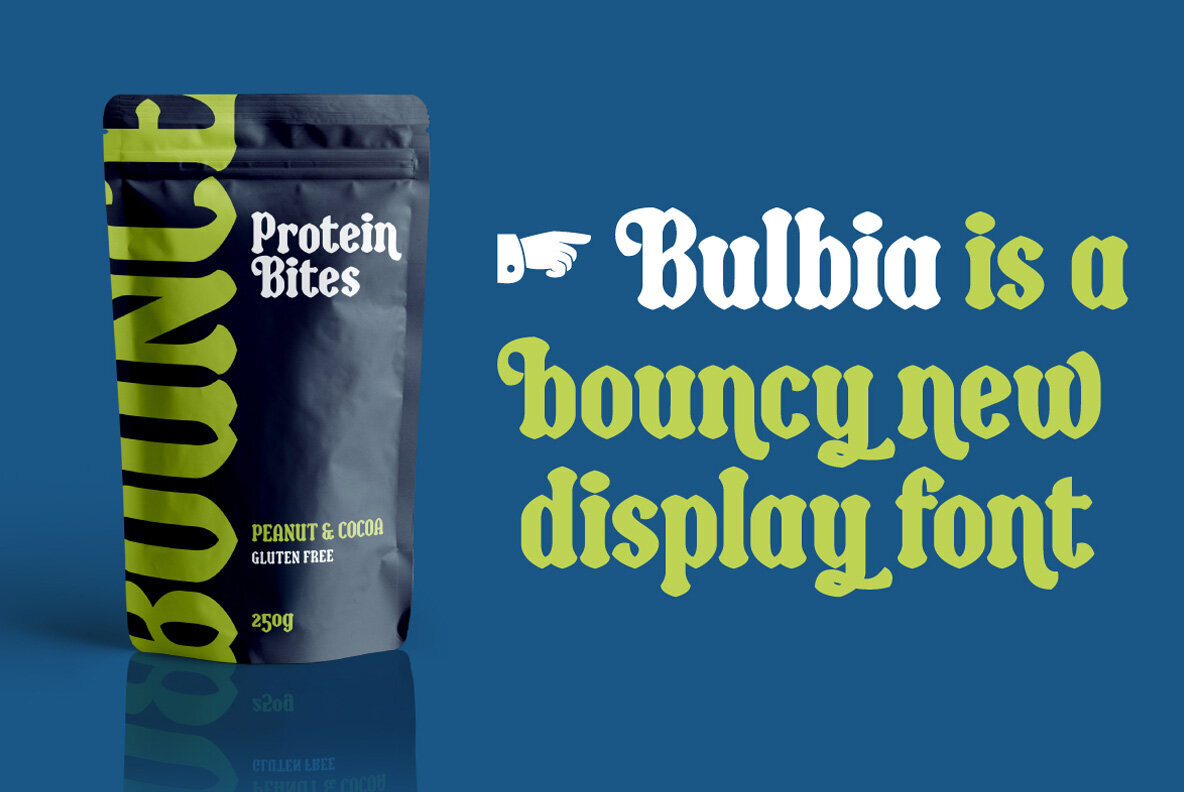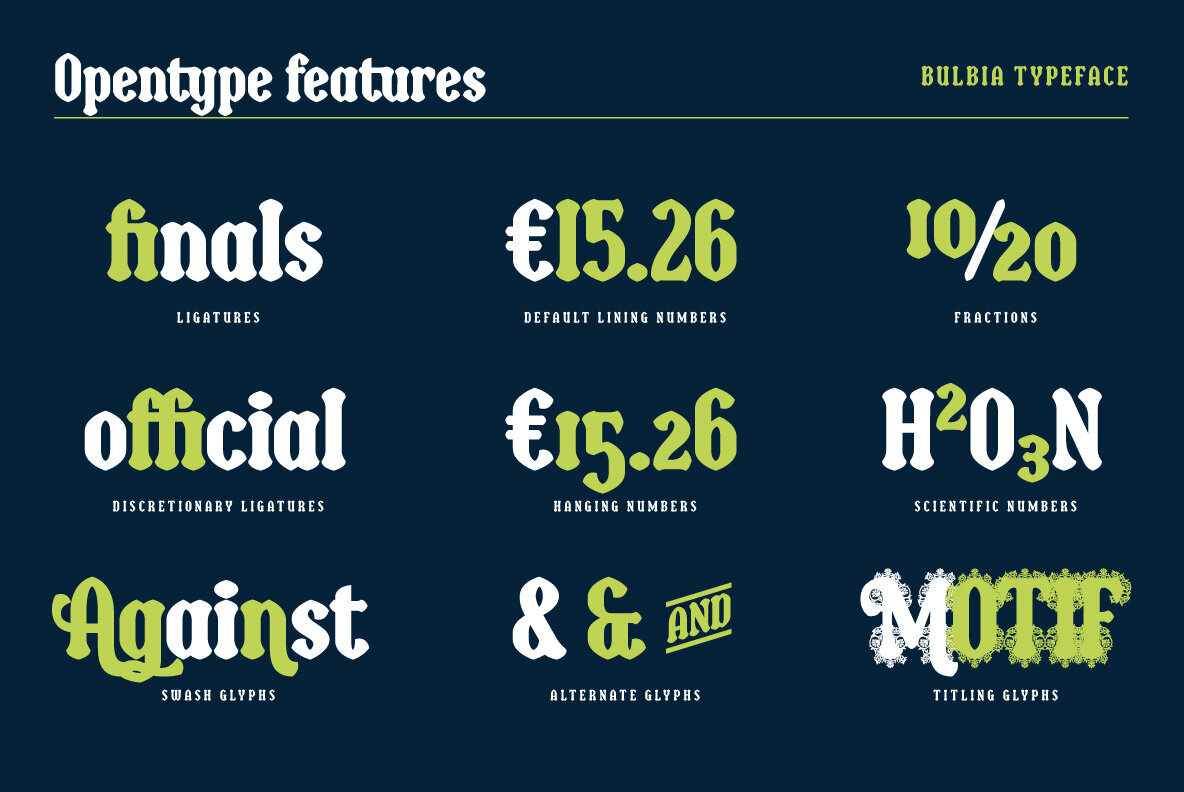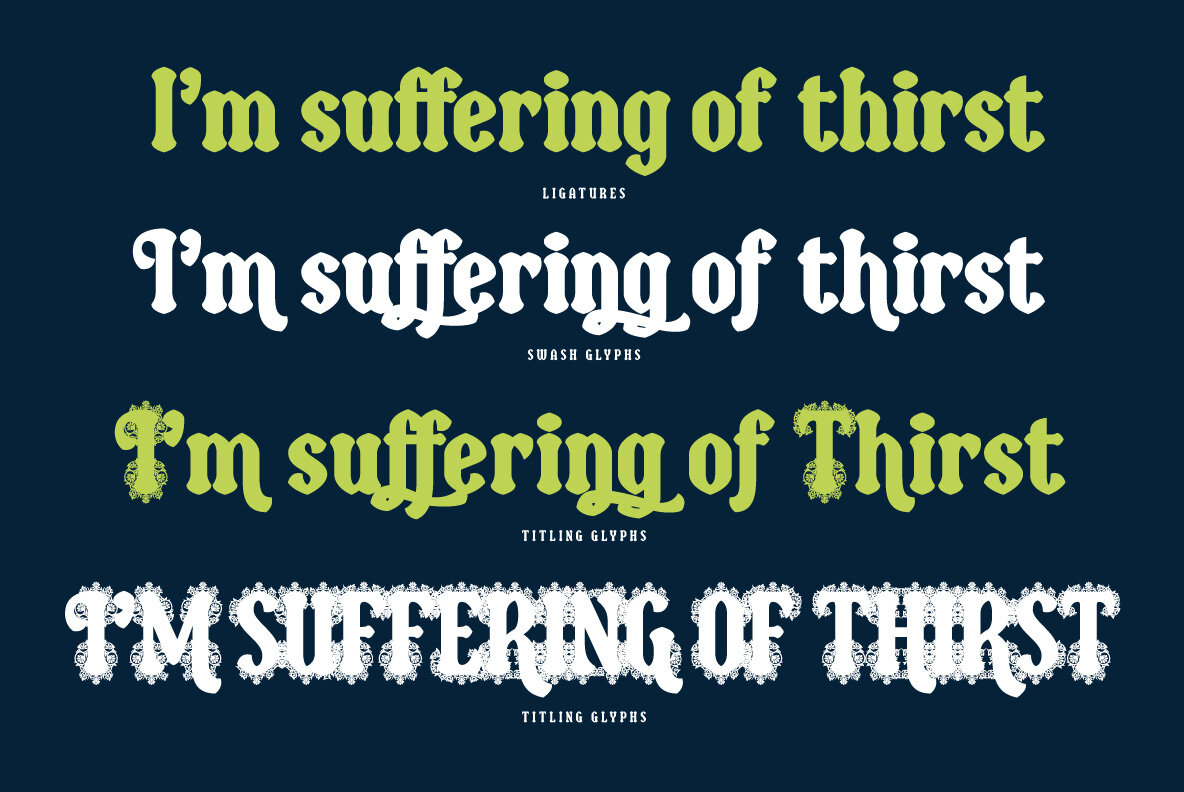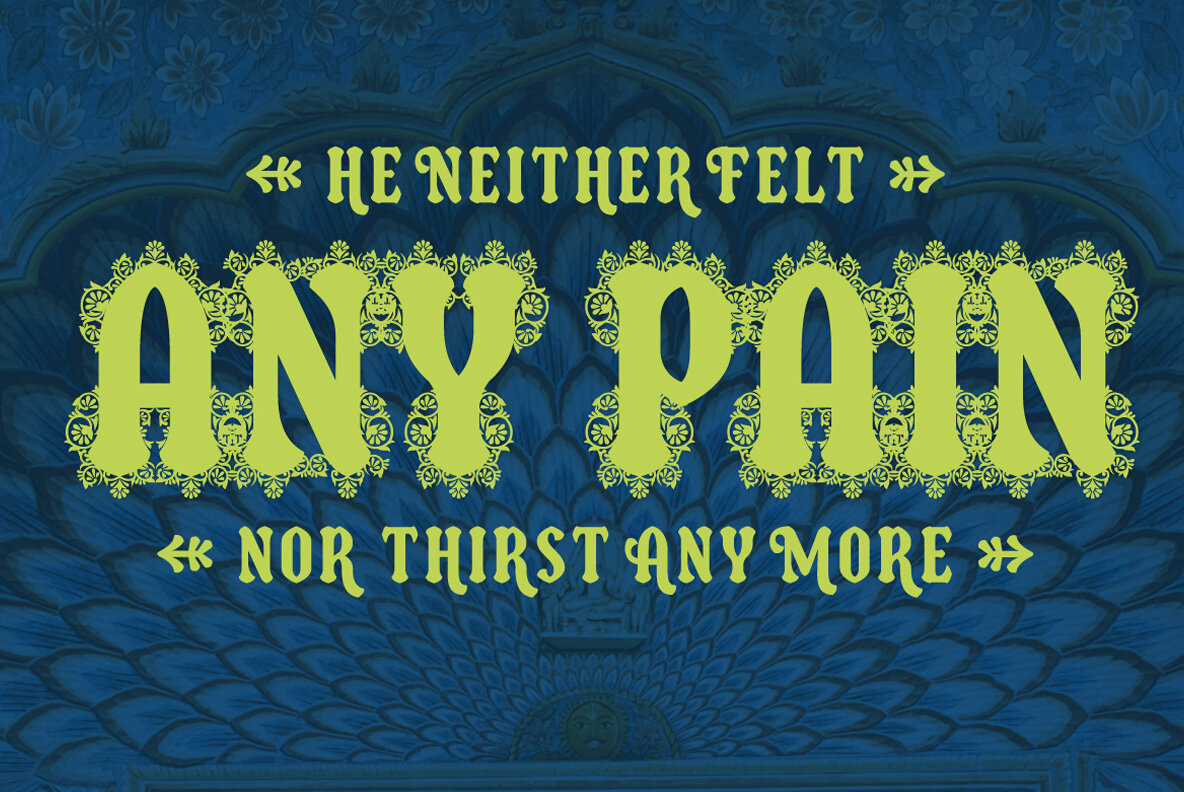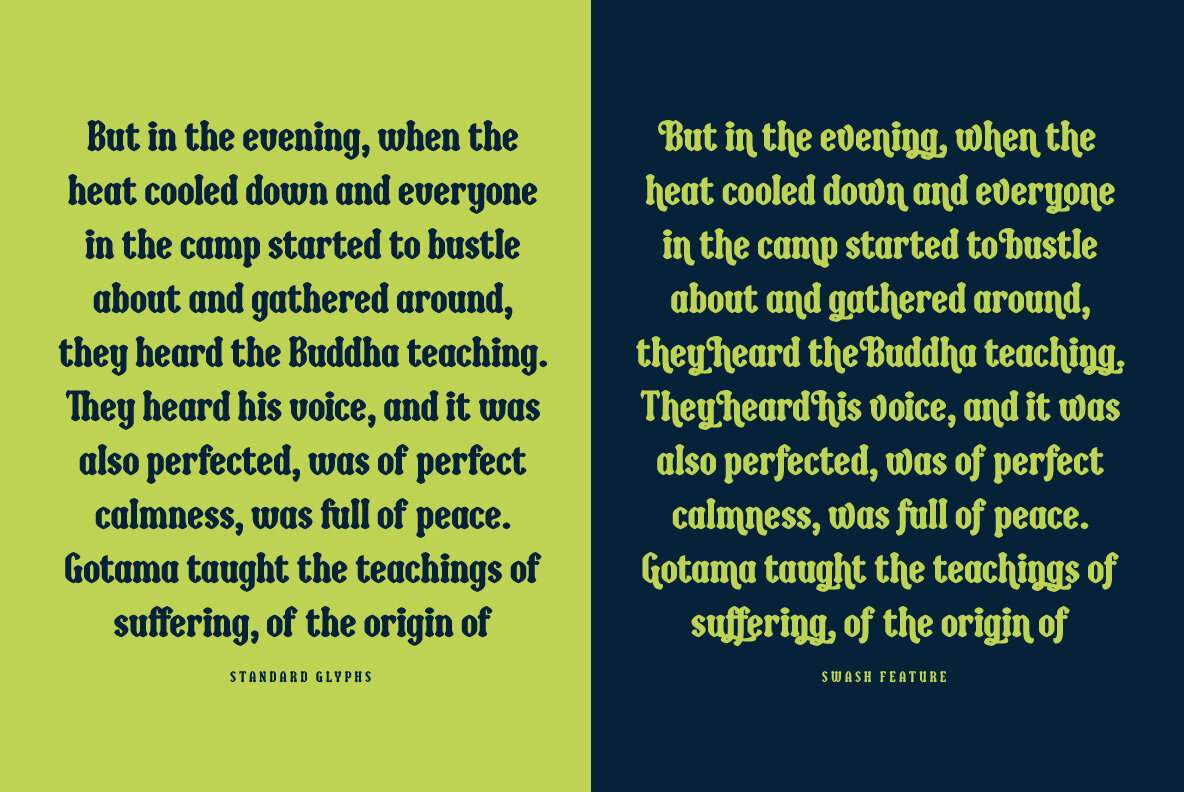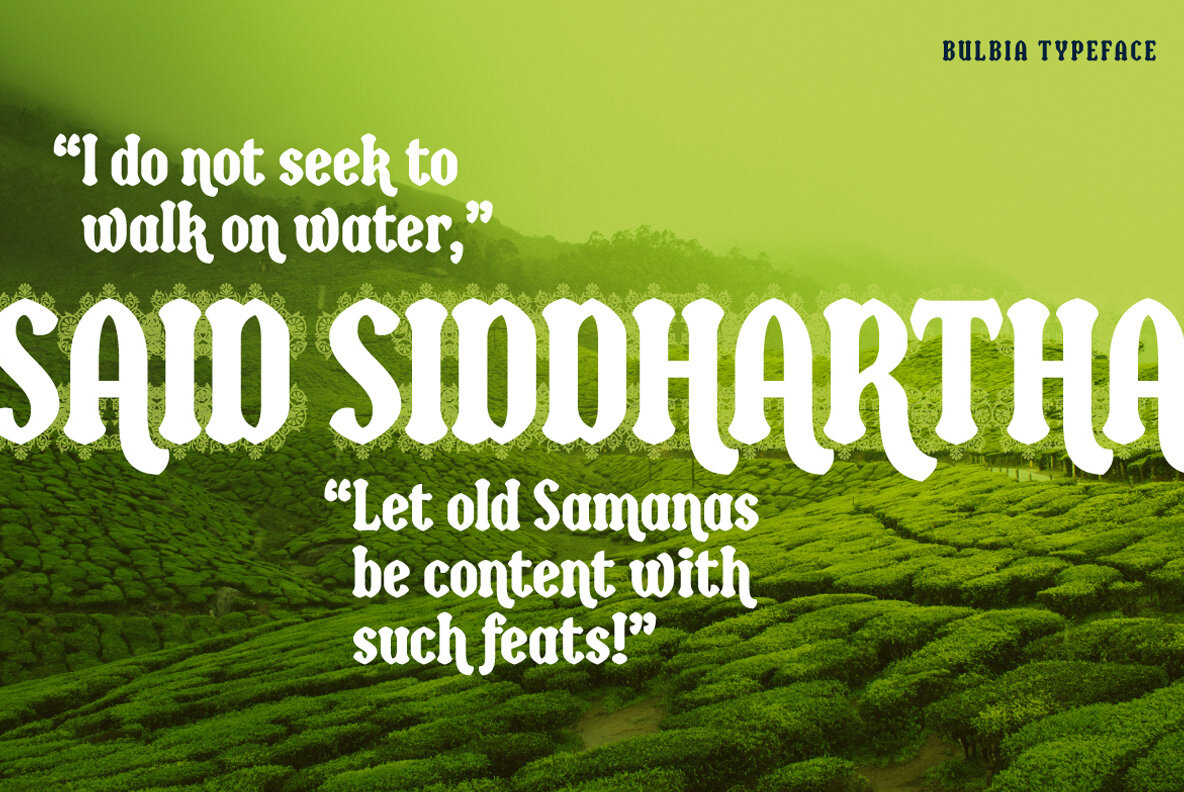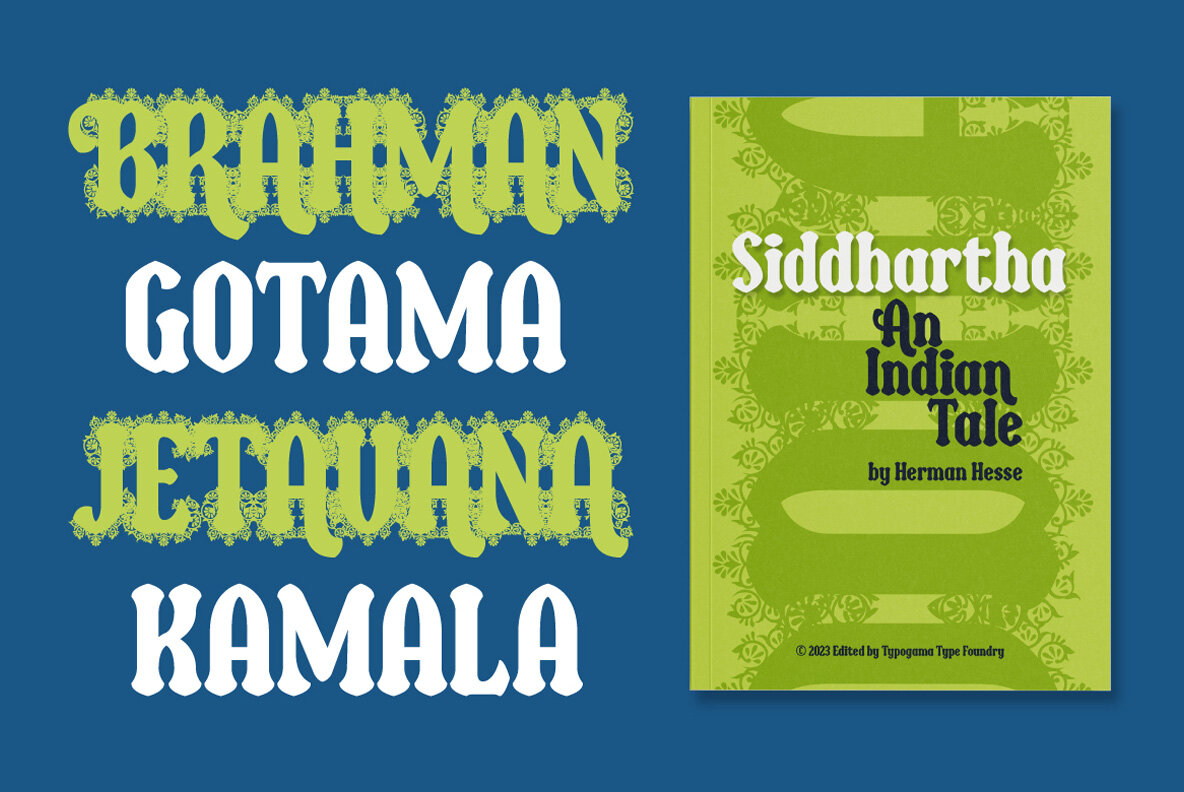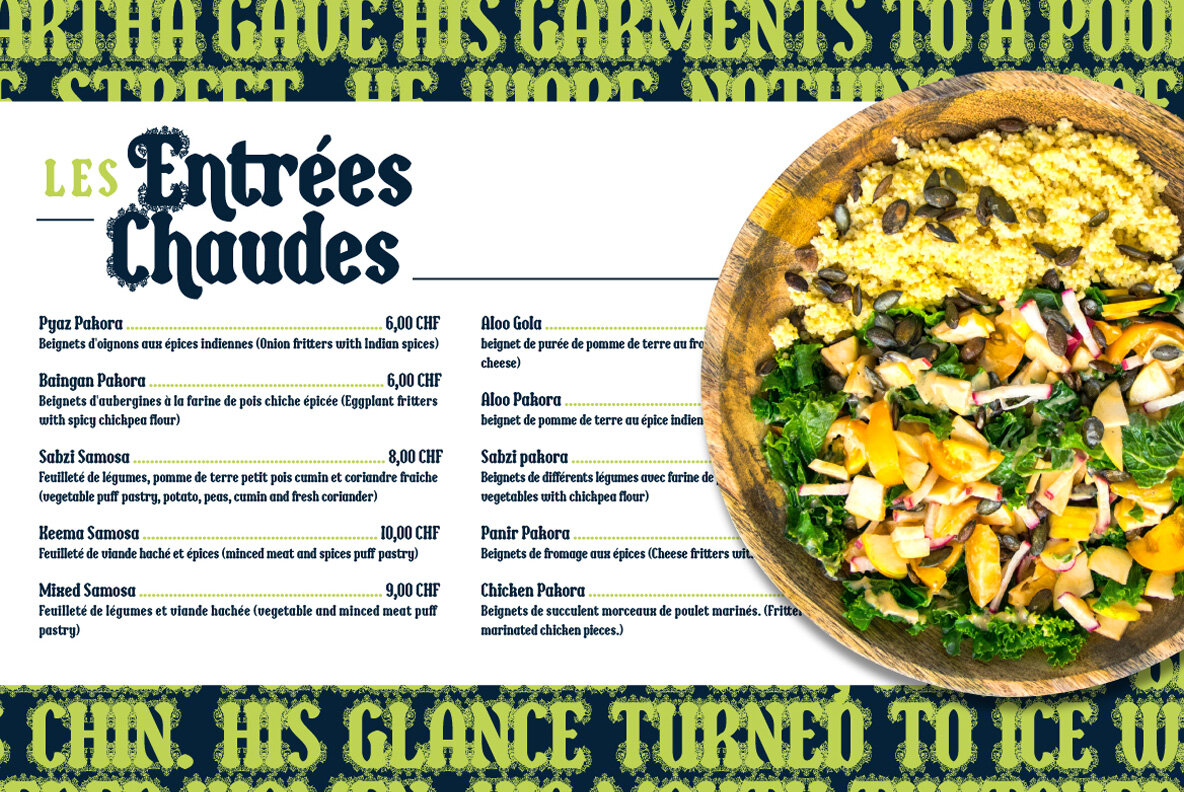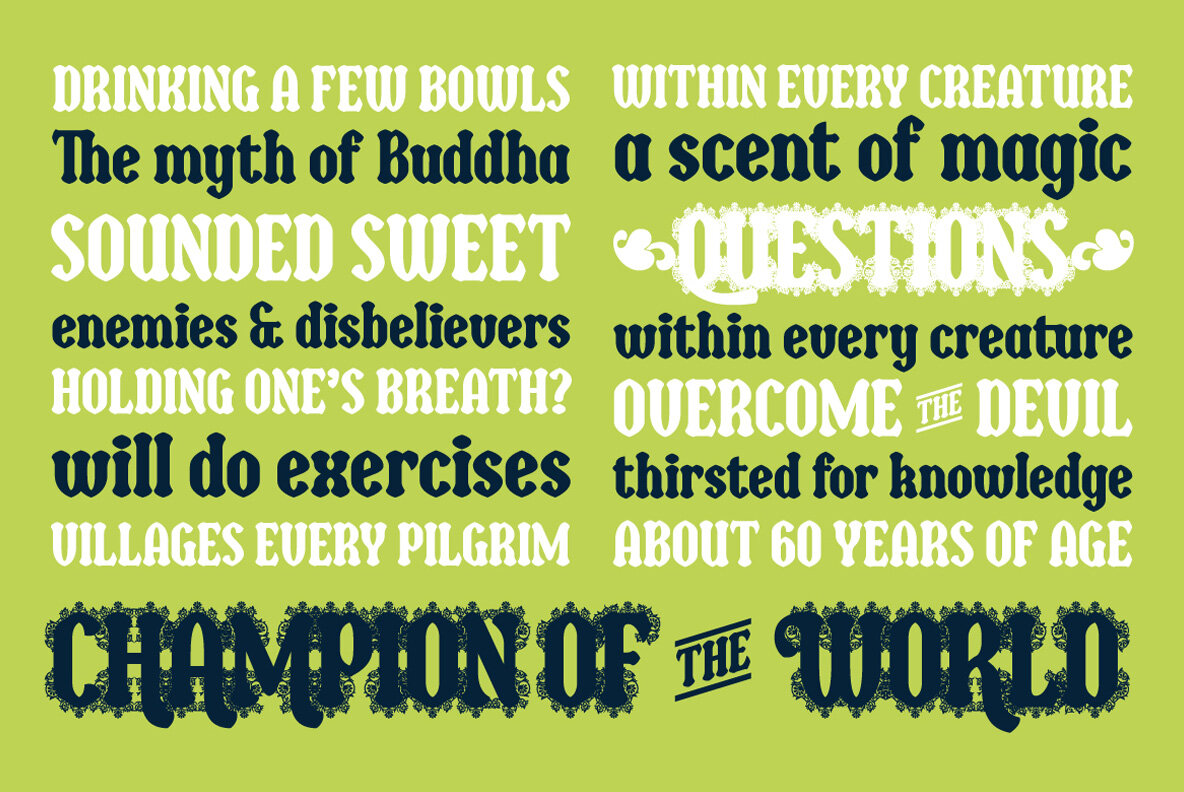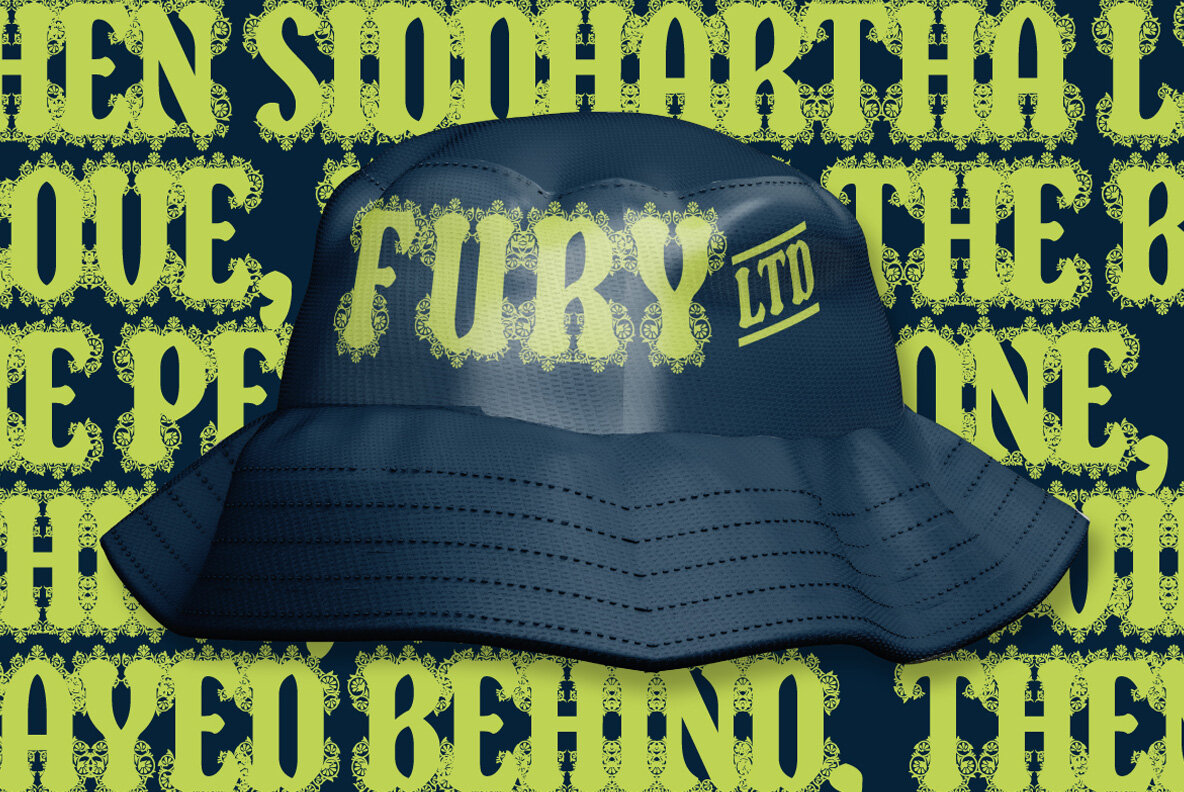
Bulbia Font
Bulbia Regular
Bulbia is a single weight, display typeface inspired by the teardrop shape featured in some middle eastern design. With a bold stroke and high contrast, this font conveys a strong, unique voice that can be further enhanced through the use of it’s extensive Opentype features. Through Swash letters, decorative Titling forms or even a range of precomposed word marks, this single weight font expands into a complete design toolkit with multiple applications and possibilities.